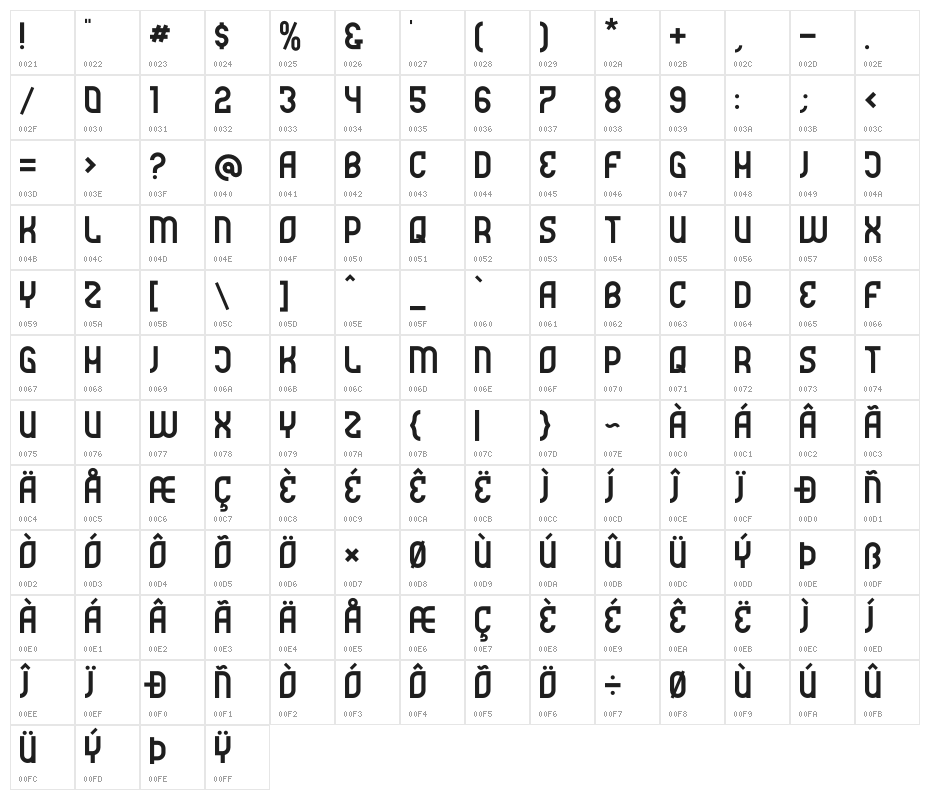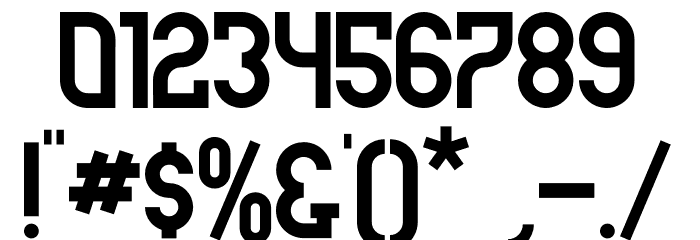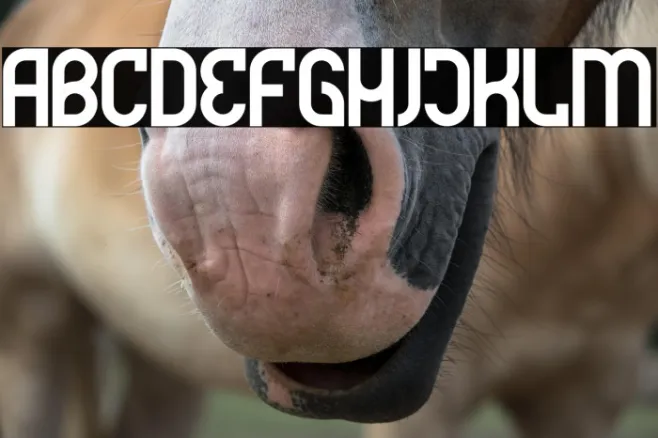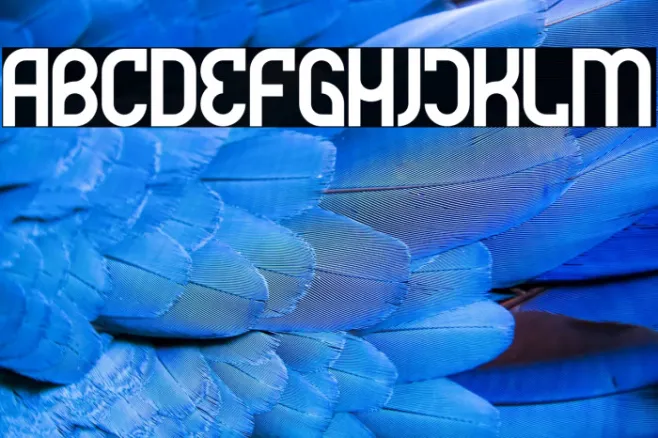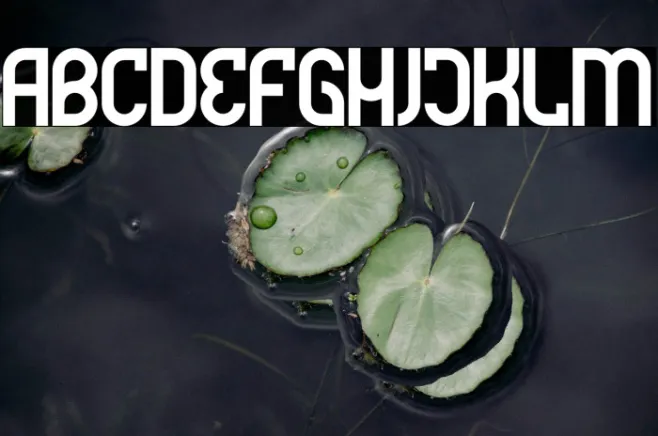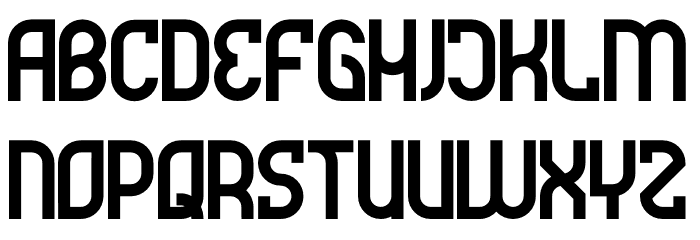
Futrons Demo Font
Futrons Demo Description
This font features a bold, geometric design with a modern and futuristic aesthetic. The characters are constructed with clean, straight lines and sharp angles, giving it a distinctive and striking appearance. The uppercase letters are uniform in height, while the lowercase letters maintain a consistent style that complements the uppercase. The numerals are bold and easily readable, matching the overall design of the alphabet. Special characters are designed to fit seamlessly with the rest of the font, ensuring a cohesive look. The font's strong presence makes it ideal for attention-grabbing headlines and modern branding projects.
| Proposed Projects | Ideal for modern branding, technology-related designs, and futuristic-themed projects. |